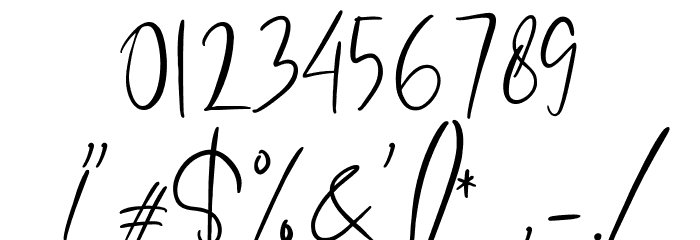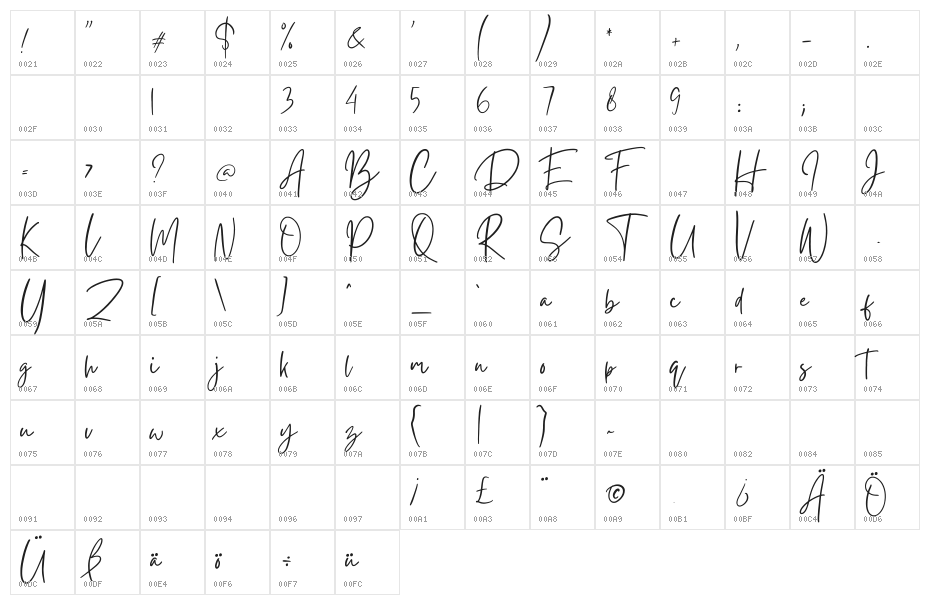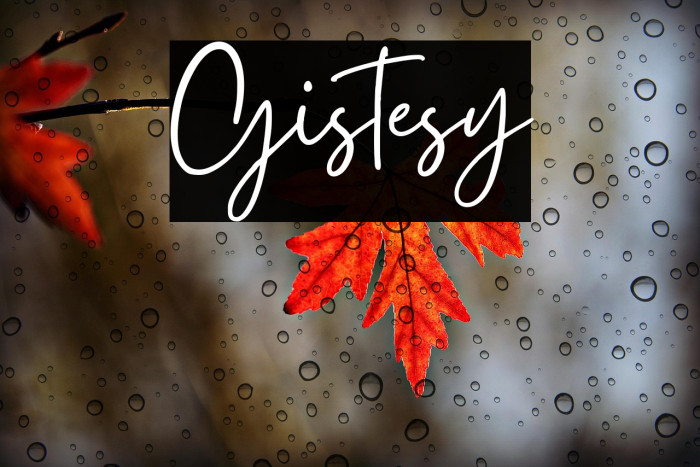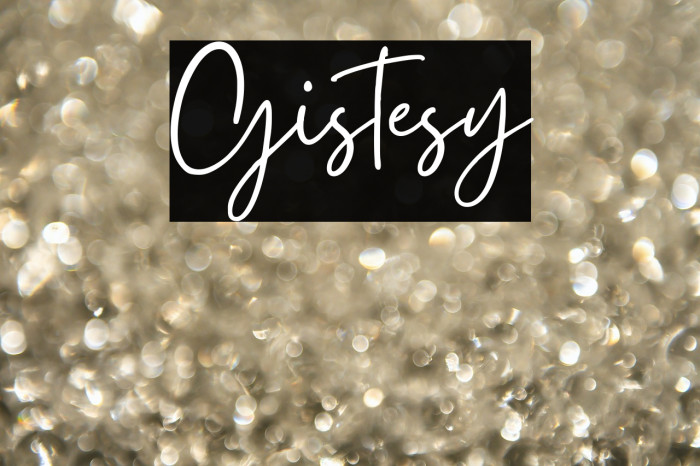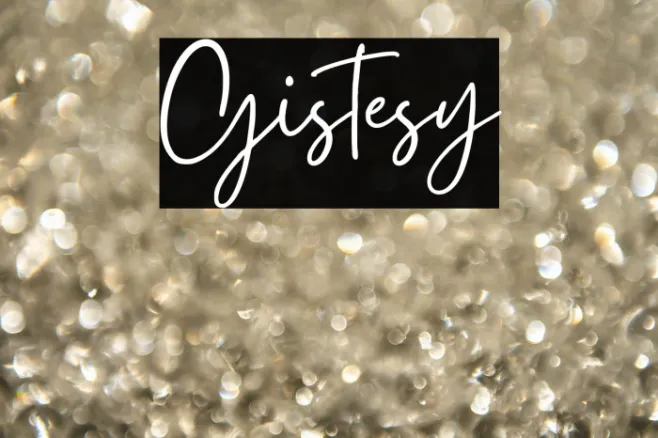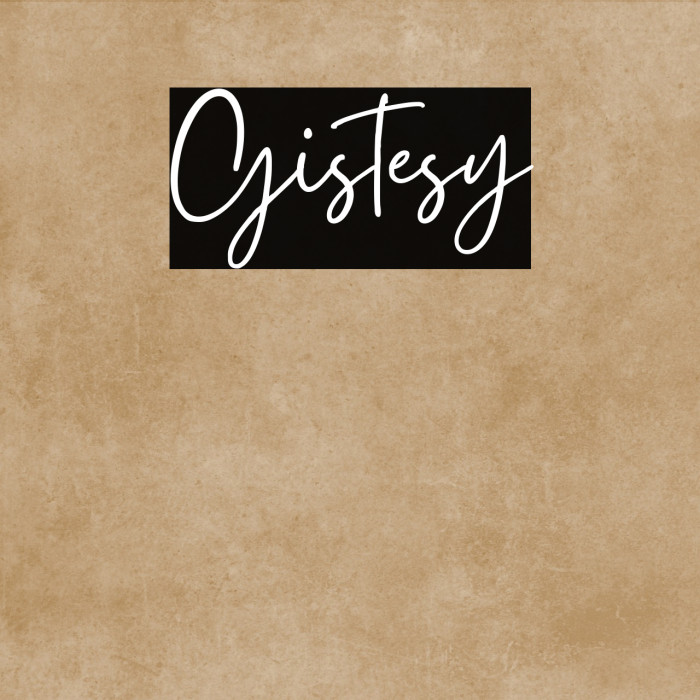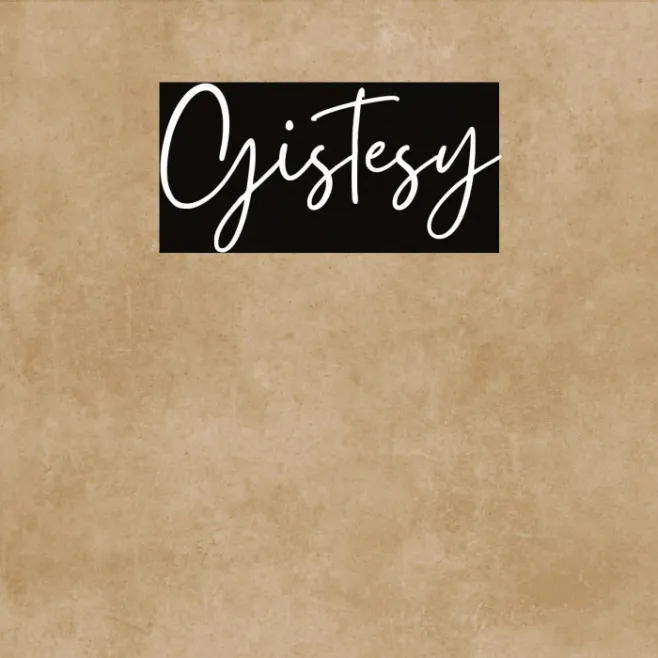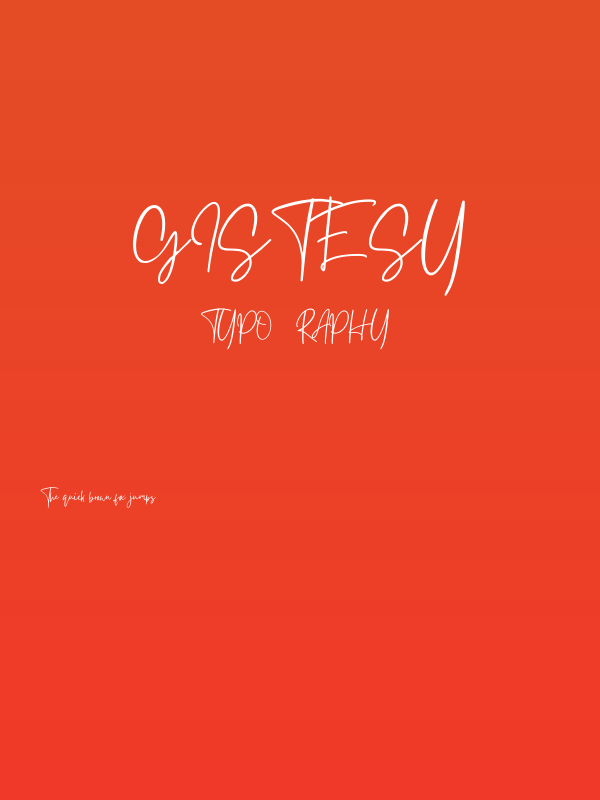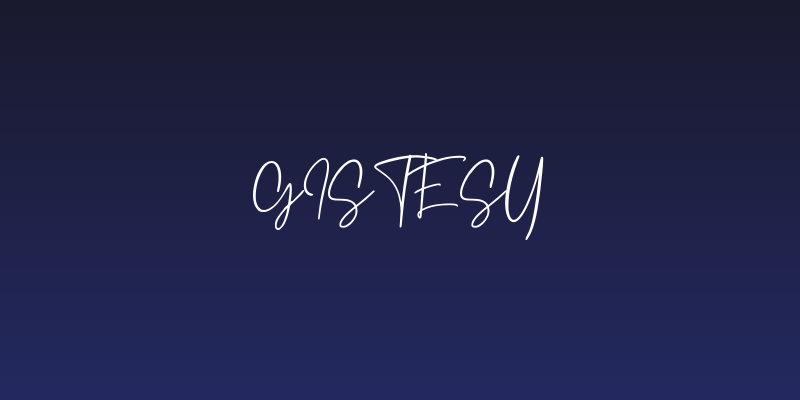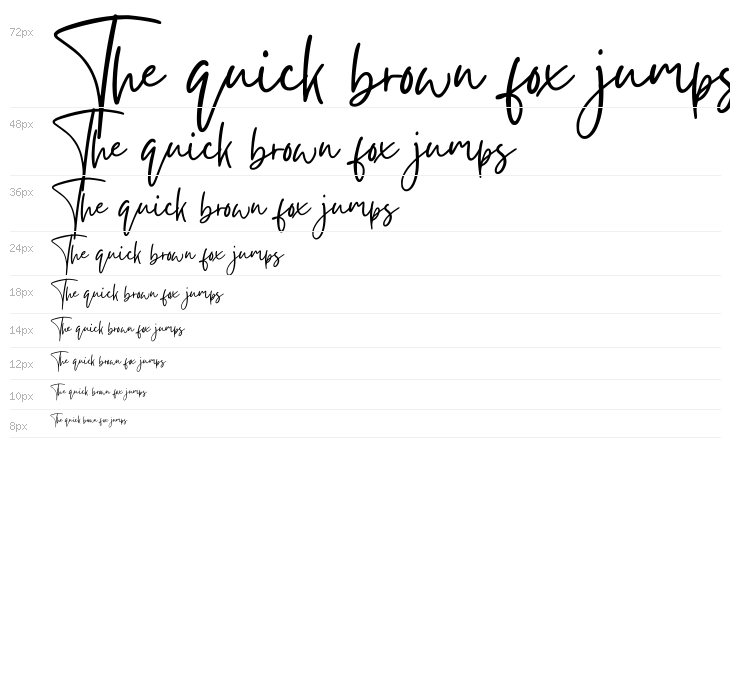
Gistesy Font
Gistesy Description
This font features a lively and dynamic handwritten style, characterized by its fluid and organic letterforms. The strokes are smooth and continuous, giving it a natural and personal touch. The uppercase letters are tall and slightly slanted, while the lowercase letters maintain a consistent flow with varying heights, adding to the font's casual elegance. The numerals are distinct and easy to read, matching the overall aesthetic. Special characters are creatively integrated, maintaining the font's cohesive appearance. This font exudes a sense of creativity and spontaneity, making it suitable for projects that require a personal or artistic flair.
| Overall Style | Casual, Artistic |
| Proposed Projects | Ideal for personal branding, invitations, greeting cards, and artistic projects. |